FONTS
USED IN HORROR POSTERS
INTRODUCTION
In this short presentation I will be researching various font options for our poster for Wiccan, a paranormal horror film about witchcraft by looking at existing paranormal horror posters for inspiration.
POSSIBLE FONTS
In this presentation I will be researching various font options for our poster for Wiccan, a paranormal horror film about witchcraft by looking at existing horror posters for inspiration. We had a few fonts that we liked the look of it and fitted in with the codes and conventions of horror posters, which is what we wanted to accomplish.
SERIF FONTS
Although they are all slightly different in style, these three serif fonts offered formality and a professional appearance. The majority of paranormal horror posters use a serif font. This could be to indicate the true events the films are based on; this is a formal decision if the film is done in accordance with convention. Formal fonts usually indicate true events due to news reports written in this style of font. The fonts also have a traditional and old look about them linking to the ancient old spirit that causes disruption in the film. Annabelle, The Conjuring and The Devil Inside all use serif fonts.
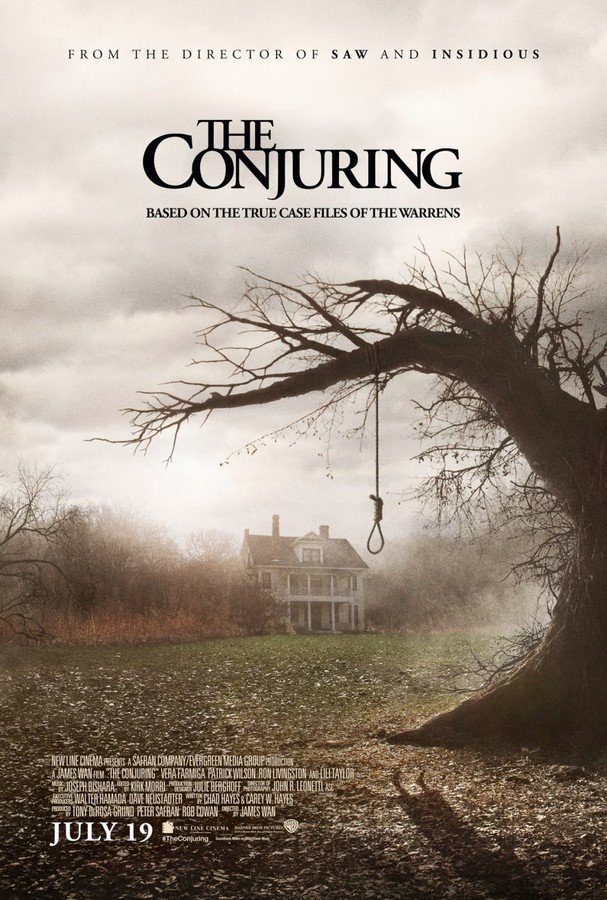
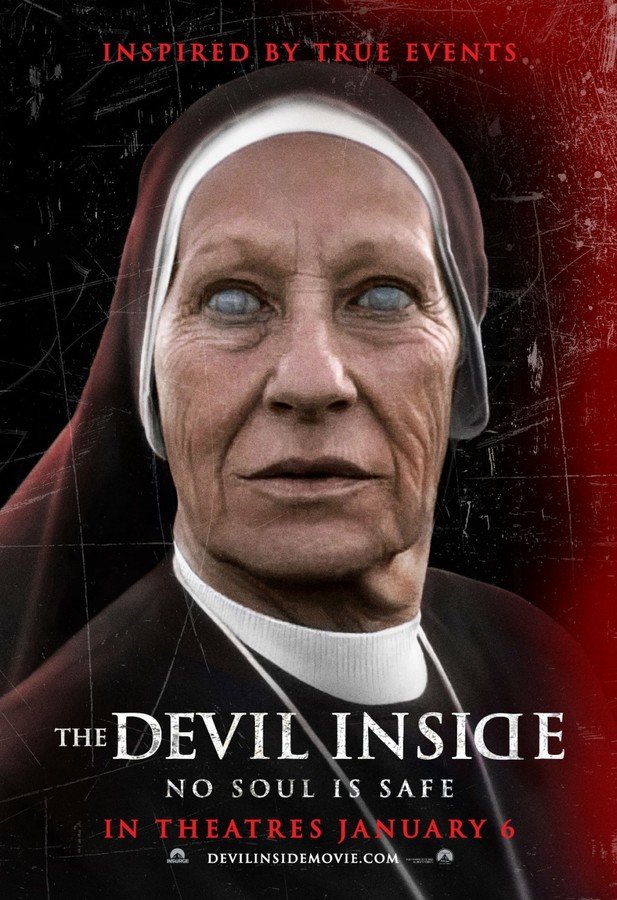
HORROR FONTS
These fonts are very typical of the genre, however is more of a convention for slasher horror films due to the harsh "slashed" style of the font; it looks as if it has been written with blood if edited in a red colour. However blood is featured in our trailer so it would make sense to chose a font like one of the three above. Straight away the audience will identify these fonts with the horror genre. Films that adopt this style of fonts on their posters are Friday the 13th, Maniac and The Prowler.
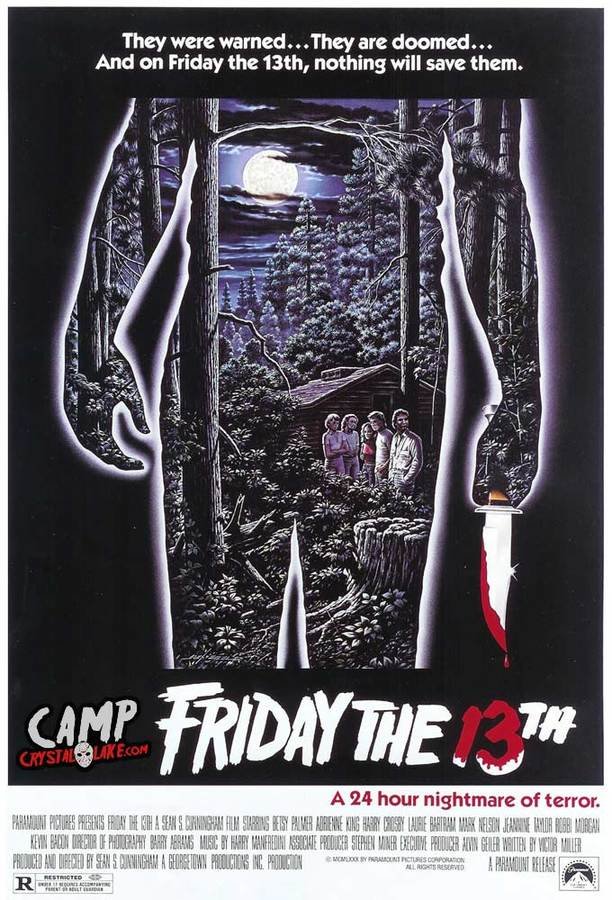
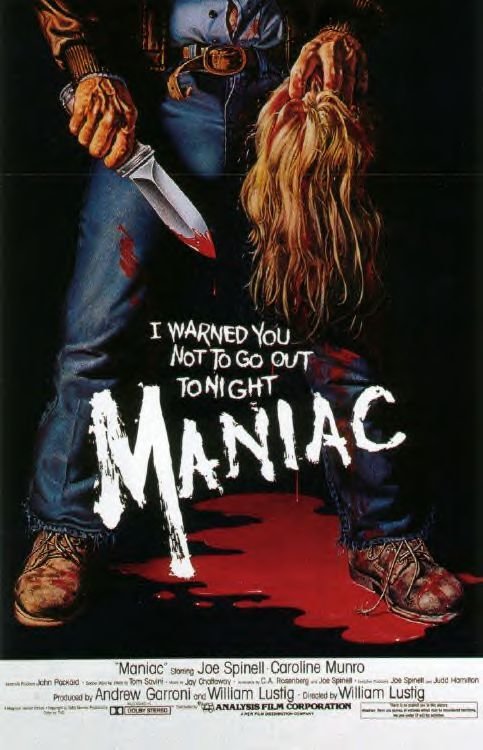
GOTHIC FONTS
These gothic fonts suggest the theme of Wiccan, it is very gothic and enchanting as the fonts indicate due to the witchcraft and spells that are featured extensively throughout. Many films with the theme of witches use this style of font, such as The Blair Witch Project, The Craft and The Witches of Eastwick.
DECISION
For our poster we have decided to go for the serif font, Centabel as this style of font seems to be a main convention for paranormal horror films that feature an ancient demon like ours. By doing this audiences will be able to recognise the font from previous posters with a paranormal film therefore generating a buzz, which is what we hope to do with our promotional poster. We have decided to not only feature the name of the film on the poster, but the tagline and release information too. Furthermore in very small print we will feature a hashtag for Twitter users to use to spread the film even further and the production company logo. We will feature the tagline at the top and the other information below; the title being the largest font as this is the most important convention on a film poster.